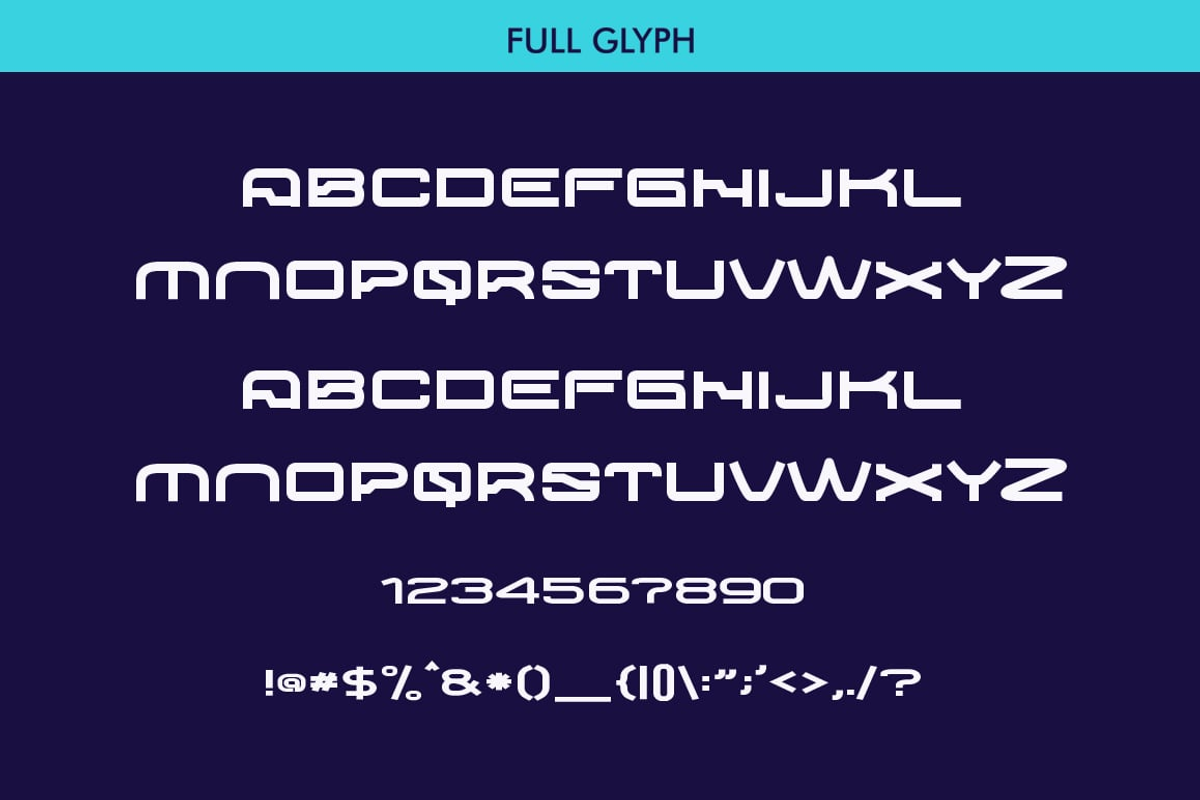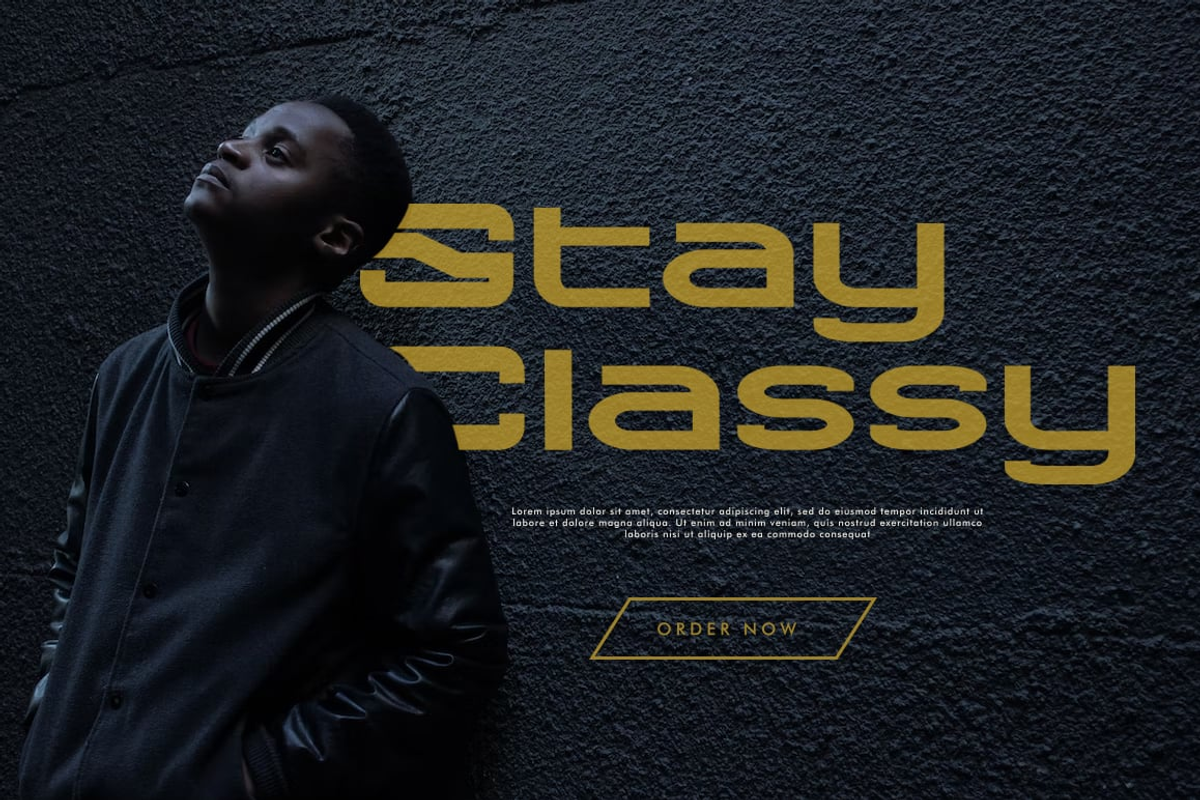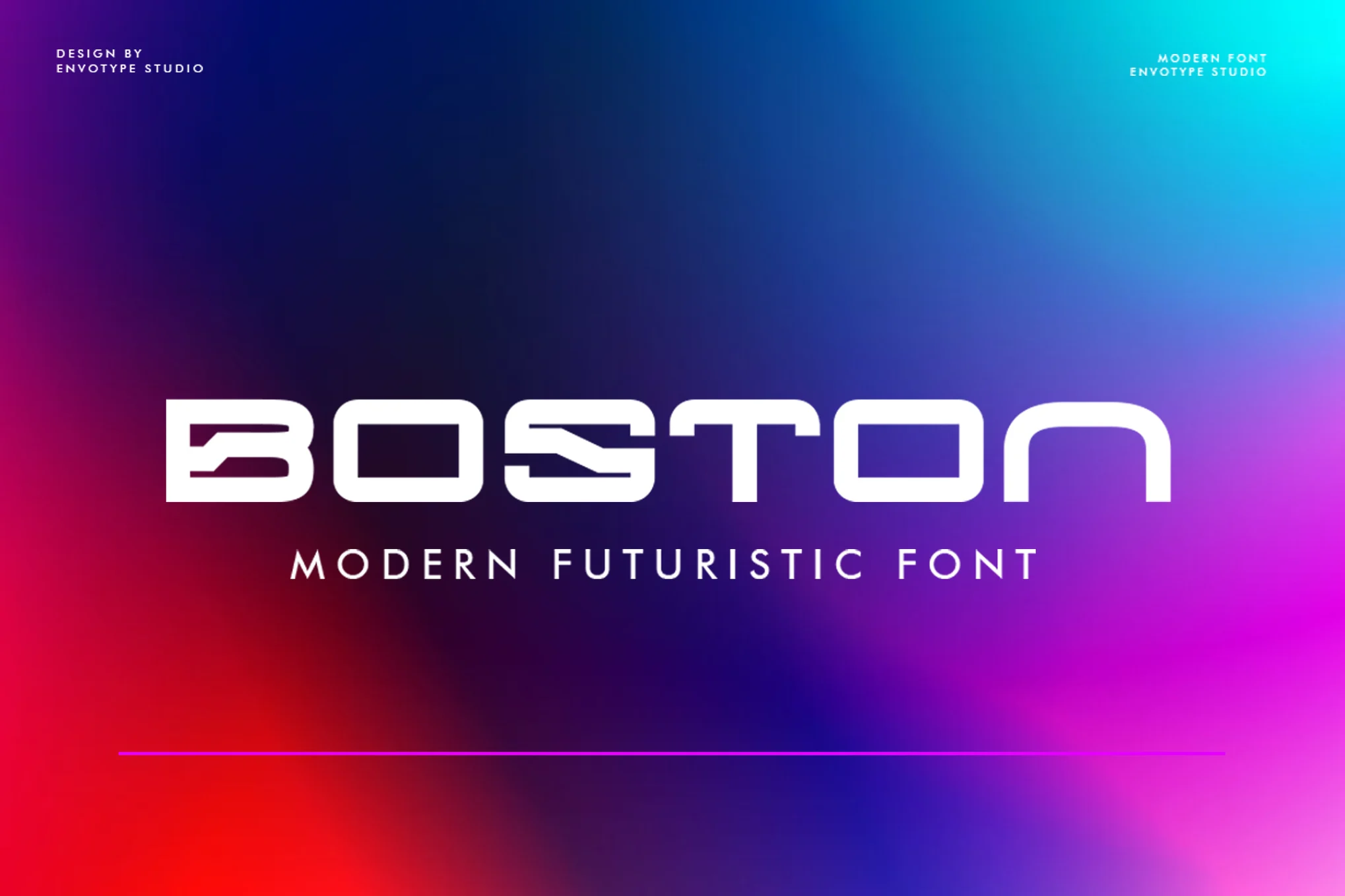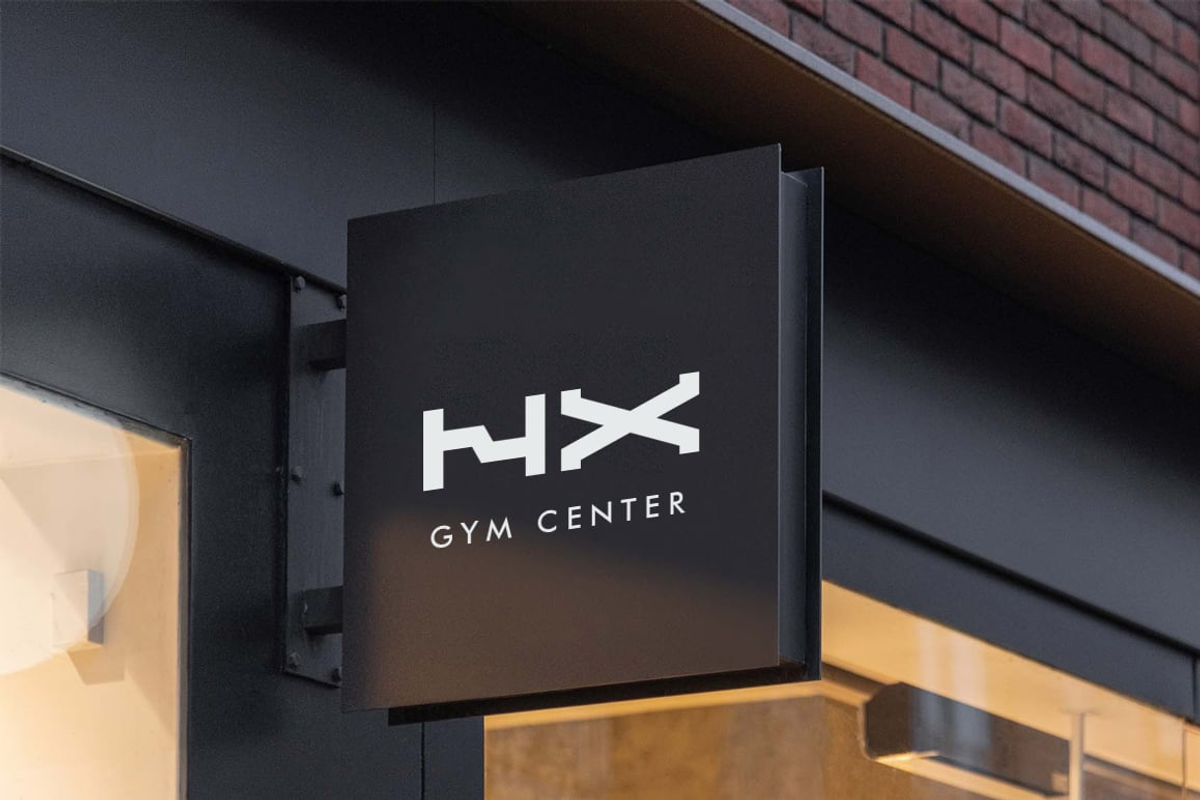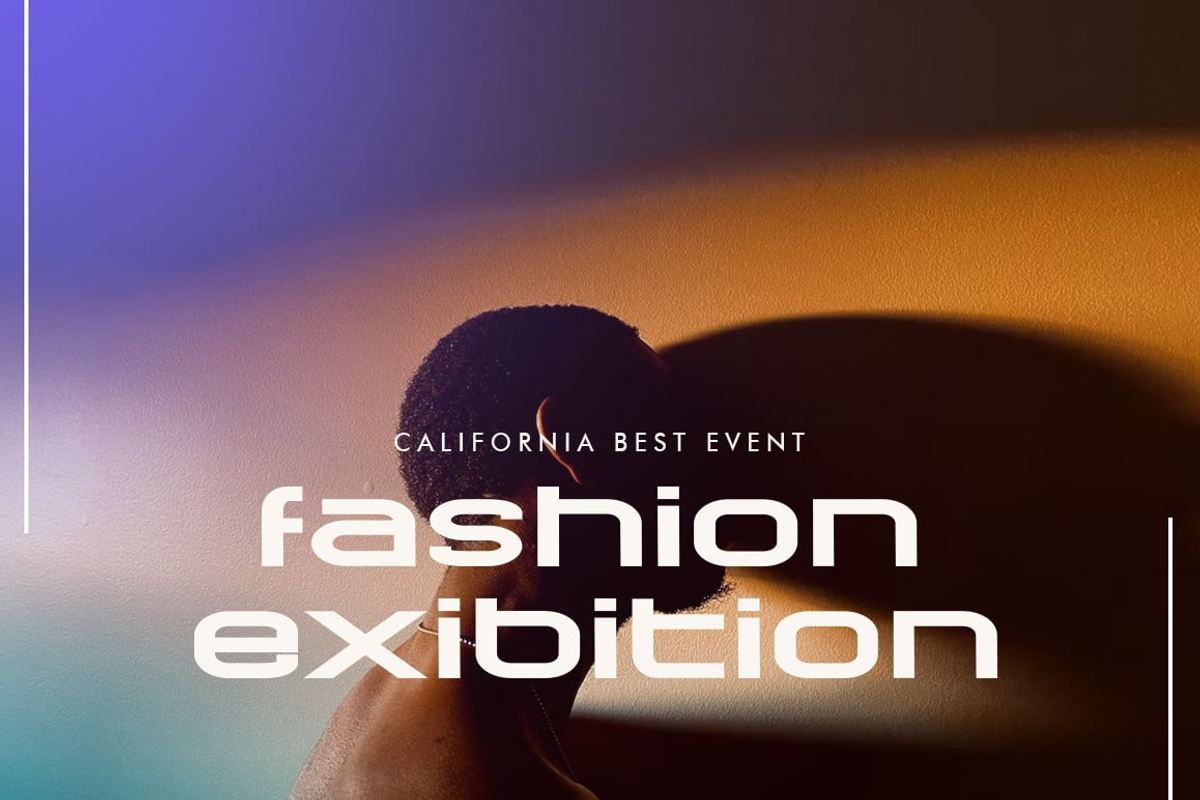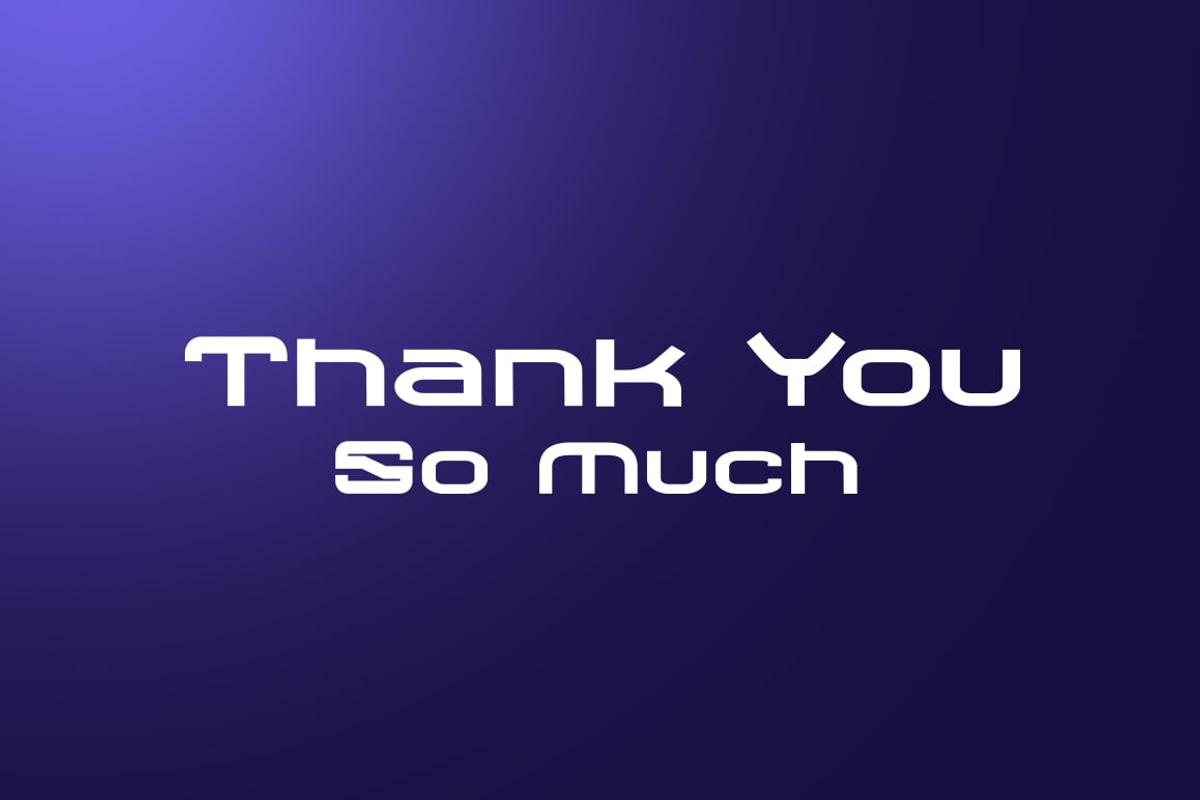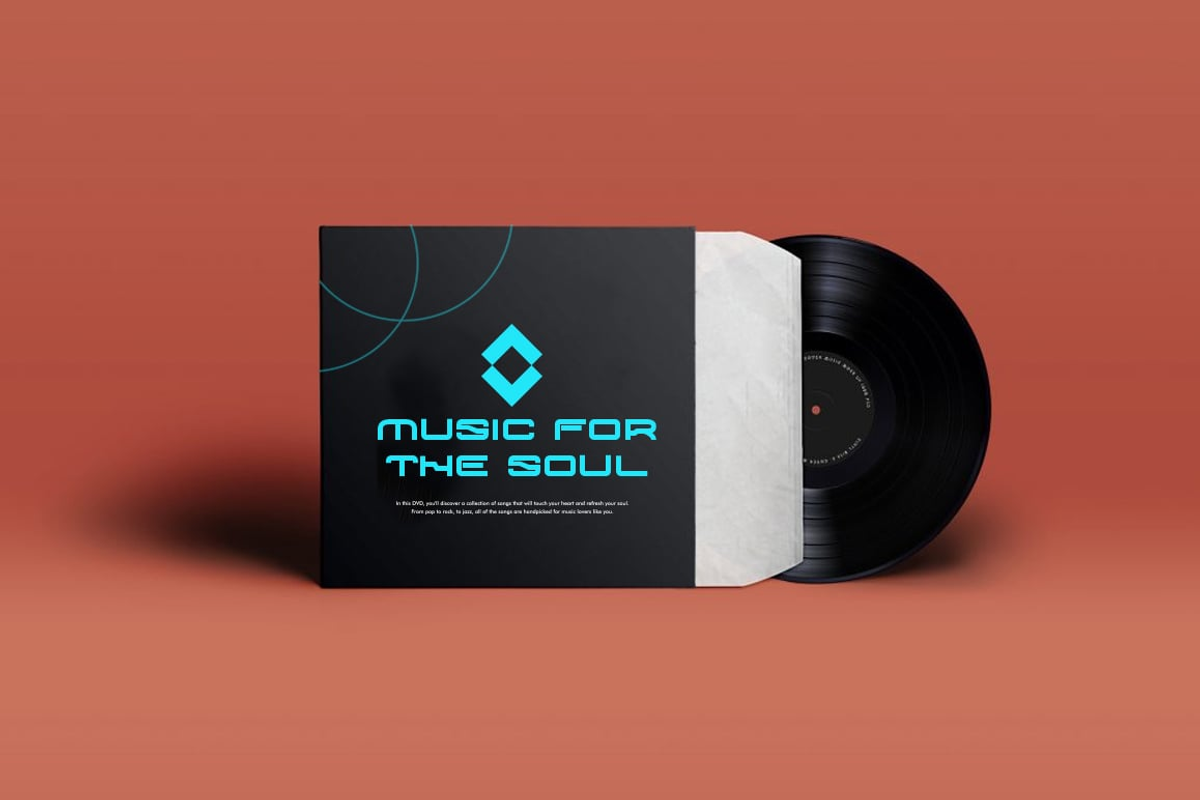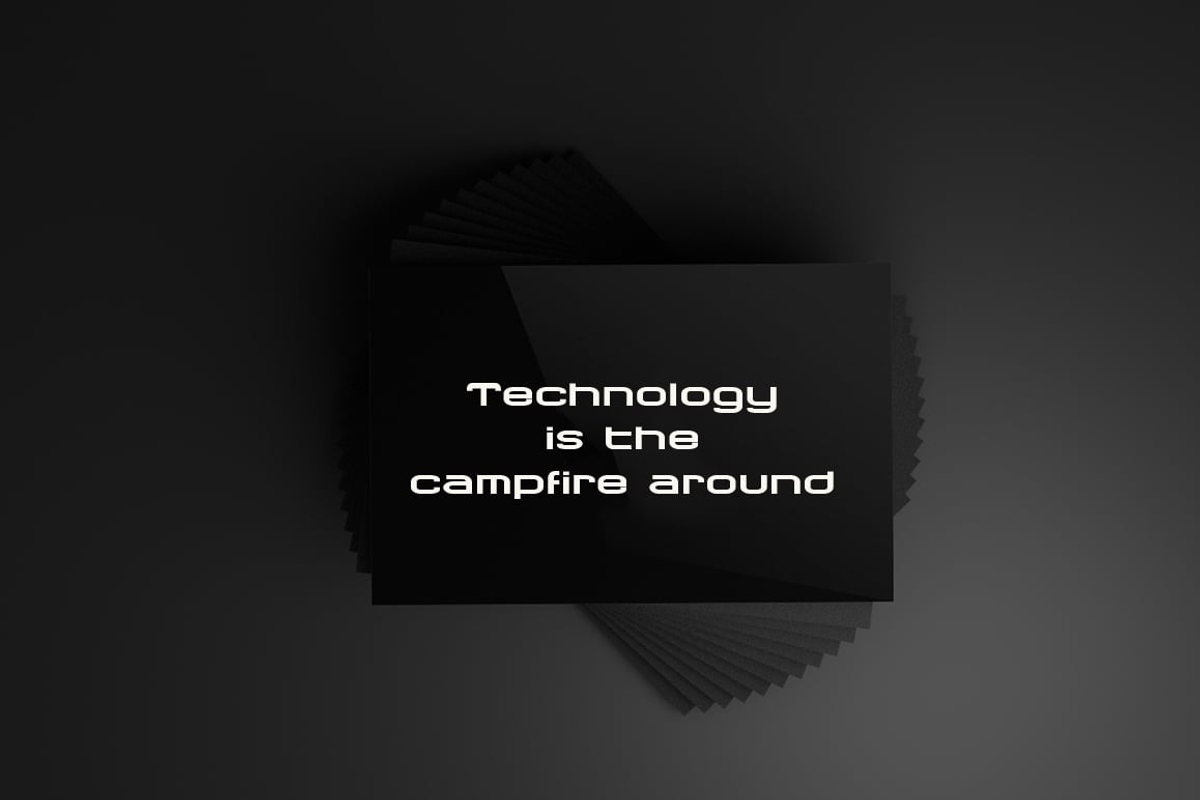
Boston - Bold Modern Font
Boston is a sans based font with unique lowercase that will make your design looks futuristic and modern. You can use this font for any purpose, especially to make logotype.
You can mix and match the uppercase and lowercase to make your logo more readable. This font also have special alternates that will make your design more stand-out!